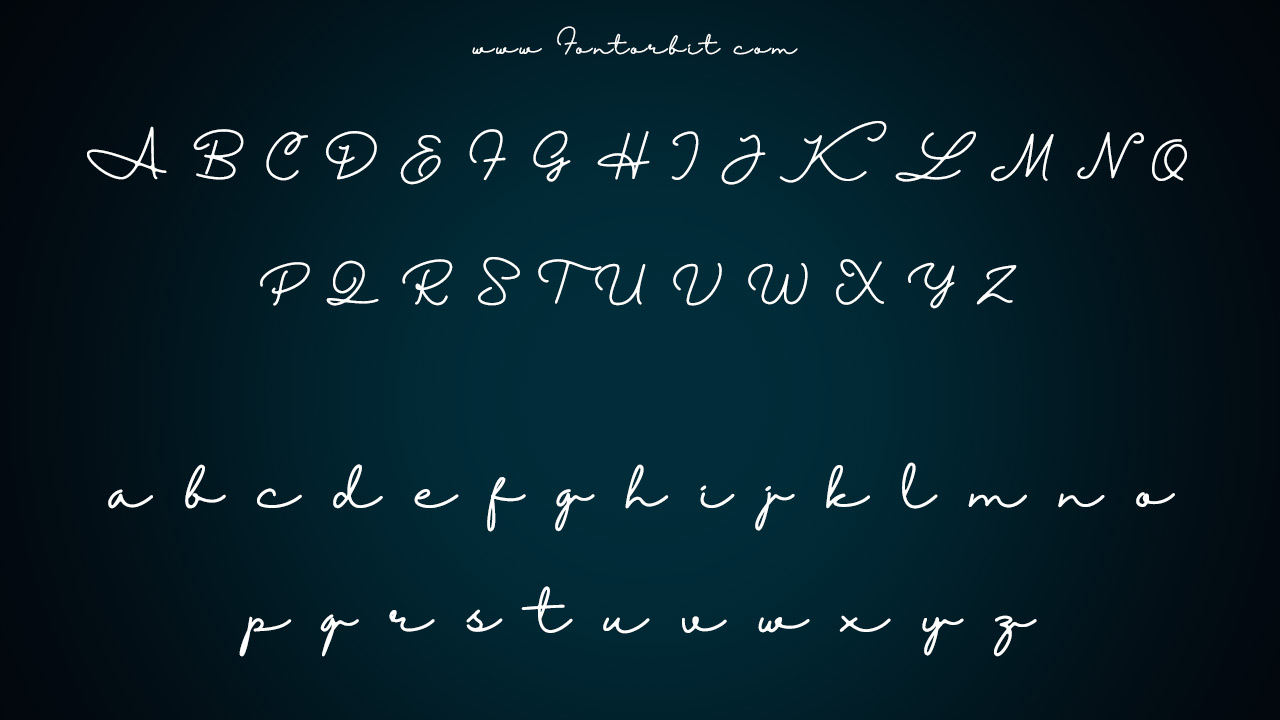
Halimun is a sophisticated script-style font created by Creatype Studio. Released with a focus on elegance and natural flow, Halimun brings a modern handwritten touch to any design project.
With its smooth and stylish curves, this font is perfect for adding a graceful, handwritten feel to various creative works. Plus, it’s free for personal use!
Halimun is designed with 100+ glyphs and offers beautiful ligatures and stylistic alternates, enhancing the font’s versatility. It features a light, natural look that exudes both elegance and simplicity, making it suitable for numerous projects, from personal branding to event invitations. The font is available in OTF, TTF, and WOFF formats, ensuring compatibility across different platforms and devices.
Halimun is frequently used in designs that need a light, romantic feel, making it ideal for wedding invitations, elegant logos, and social media branding. Its soft, handwritten style also adds a warm, personalized touch to product packaging and event stationery.
Halimun is an excellent choice for designers looking to incorporate a refined, handwritten script into their projects. Its delicate, yet stylish strokes are perfect for designs that require a soft, elegant aesthetic. Pair Halimun with modern, minimalist fonts such as Open Sans or Montserrat to create a balanced, cohesive look.
1.What Is Halimun Font?
Halimun is a script-style font with a handwritten feel, designed by Creatype Studio. It is known for its light, natural strokes and elegant curves.
2.How Can I Render Text In A Handwritten Style Like Halimun?
You can use Halimun directly in graphic design software such as Adobe Illustrator or Photoshop to achieve a handwritten look. Additionally, you can apply stylistic alternates and ligatures to add more personalization to the text.
4.What Type Of Font Is Halimun?
Halimun is a modern script font with a handwritten, natural flow. It is perfect for designs that need an elegant and sophisticated touch.